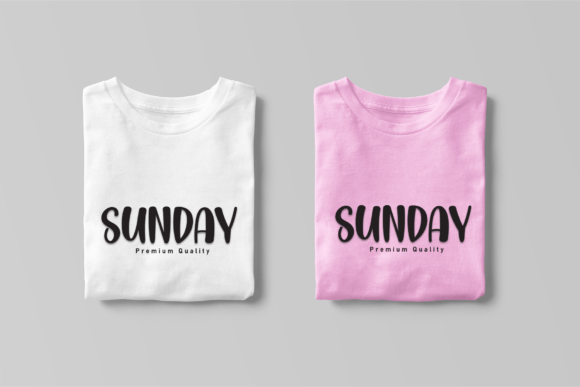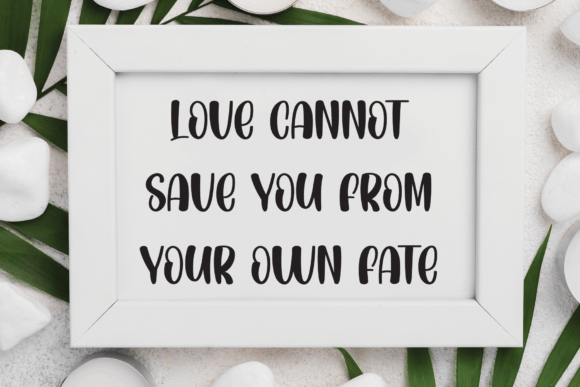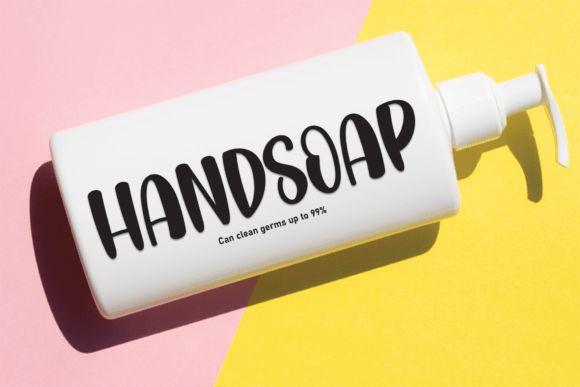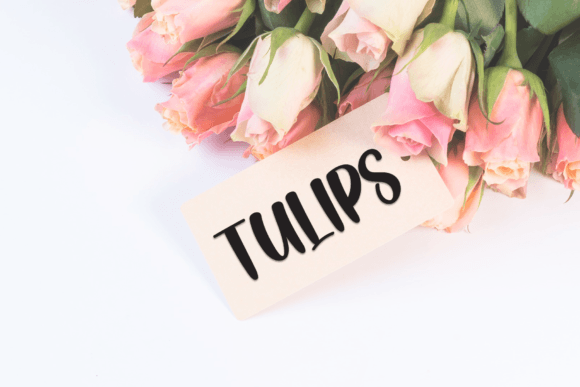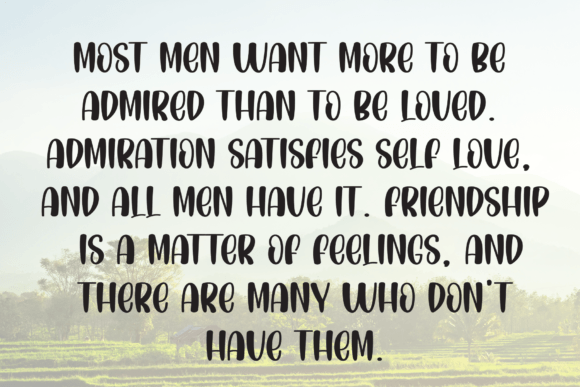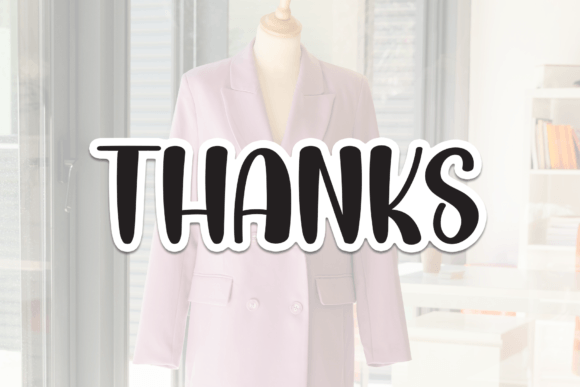
Introduction to Mannequin Font
Have you ever been browsing through a beautifully designed wedding invitation and wondered what made it stand out? For many of us, it’s the elegant script that catches our eye, making the message all the more special. This is exactly where the Mannequin Font comes in – a stylish and incredibly elegant script font that adds a handwritten touch to any design.
Whether you’re working on a creative project that requires a high-quality design resource or simply want to elevate your personal stationery, the Mannequin Font is a valuable addition to your toolkit. With its versatility and sophistication, it’s no wonder that designers and artists are flocking to this font for their next big project.
Key Features of Mannequin Font
- High-quality design resource ideal for creative projects, offering a unique and stylish touch.
- Designed with a modern aesthetic, making it perfect for contemporary design projects, such as logos, graphics, and typography.
Honest Review: Mannequin Font
I recently had the opportunity to work with the Mannequin Font for a creative project and was thoroughly impressed with its high quality and versatility.
Here are some key features of the Mannequin Font:
- Unique and quirky design
- High quality and versatile
- Not suitable for all design projects
Overall, I was really impressed with the Mannequin Font and would definitely consider using it again for future design projects. It’s a valuable design resource that’s sure to add some personality to your work.
The Mannequin Font is a versatile and stylish design resource perfect for creative projects. With a high-quality design and transparent background, it’s ideal for designers who want to add a unique touch to their work.
The Mannequin Font is perfect for fashion, beauty, and lifestyle brands. Use it to create custom graphics, social media posts, and product packaging that stands out from the crowd.